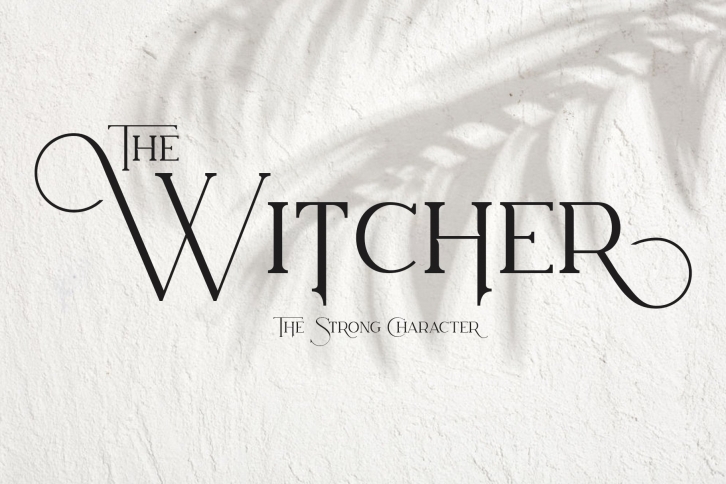
THE WITCHER is inspired by witches in the game. This font has many alternatives that you can use for your needs such as branding, logotype, cards, and more.